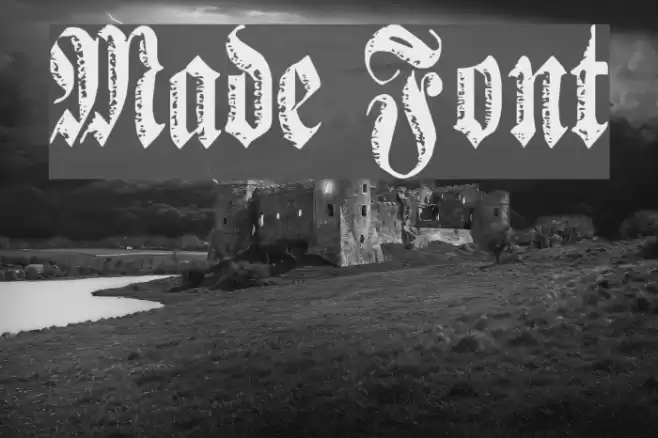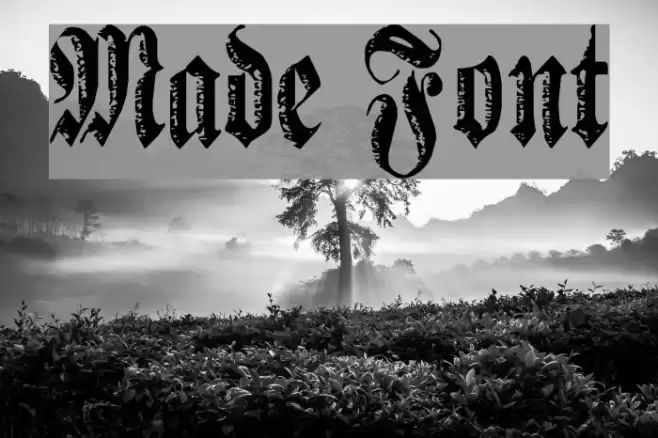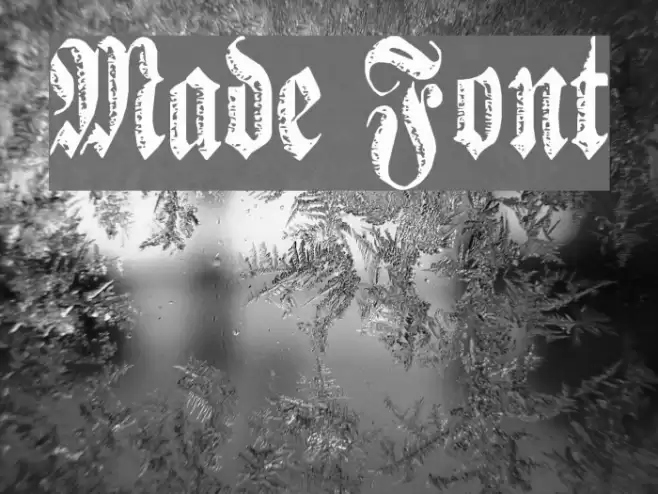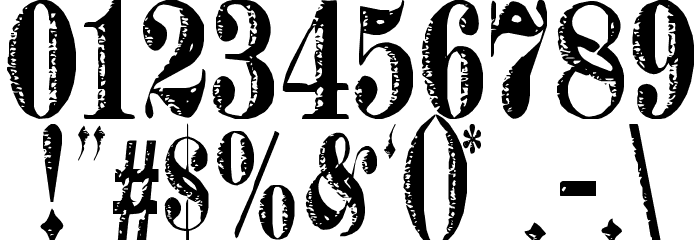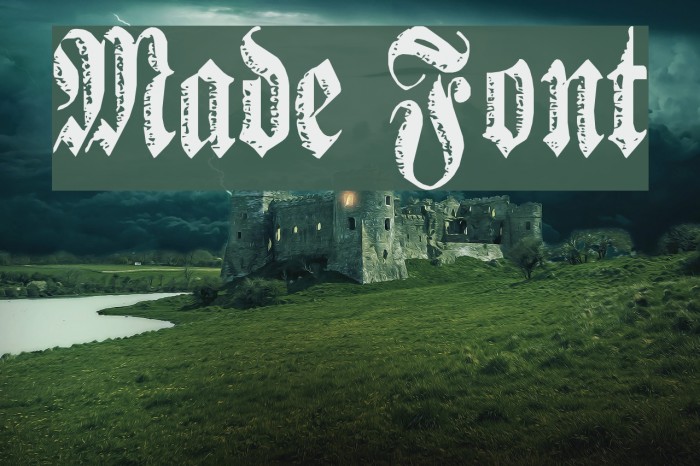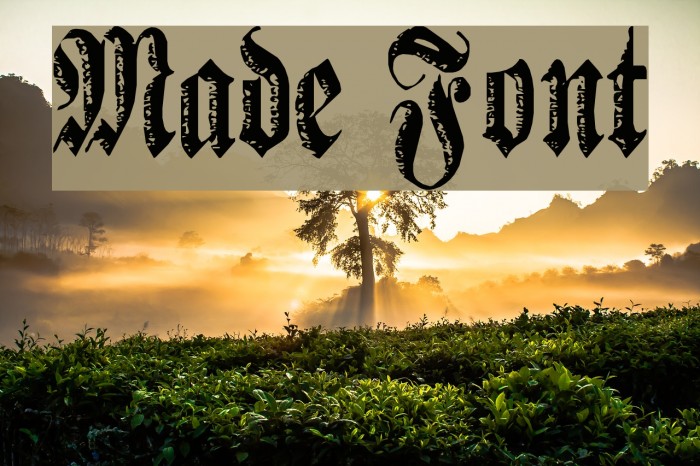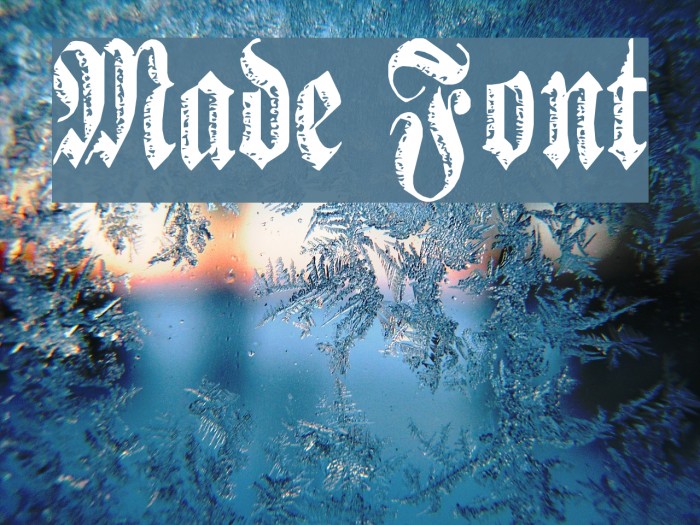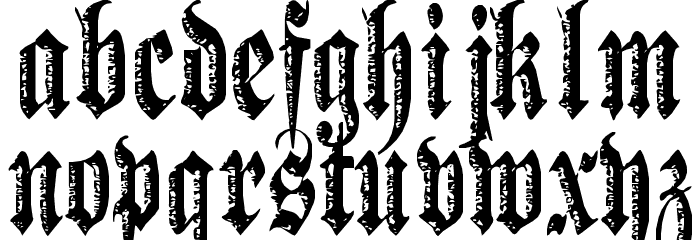
Made Font
Made Description
This font is a striking example of Blackletter style, characterized by its intricate and ornate letterforms. The uppercase and lowercase letters feature sharp, angular lines with dramatic flourishes, reminiscent of medieval script. The numbers and special characters maintain this elaborate design, adding a sense of historical gravitas. The font's texture appears distressed, giving it a vintage, worn look that adds to its authenticity and charm. The overall appearance is bold and commanding, making it suitable for projects that require a touch of old-world elegance and authority.
An ornate Blackletter font with distressed, vintage appeal from Gothic fonts.
- Proposed Projects: Ideal for historical documents, gothic-themed designs, book covers, and branding that requires a medieval or vintage aesthetic.
- Overall Style: Vintage
- Use Case: Logos, Headlines, Decorative text